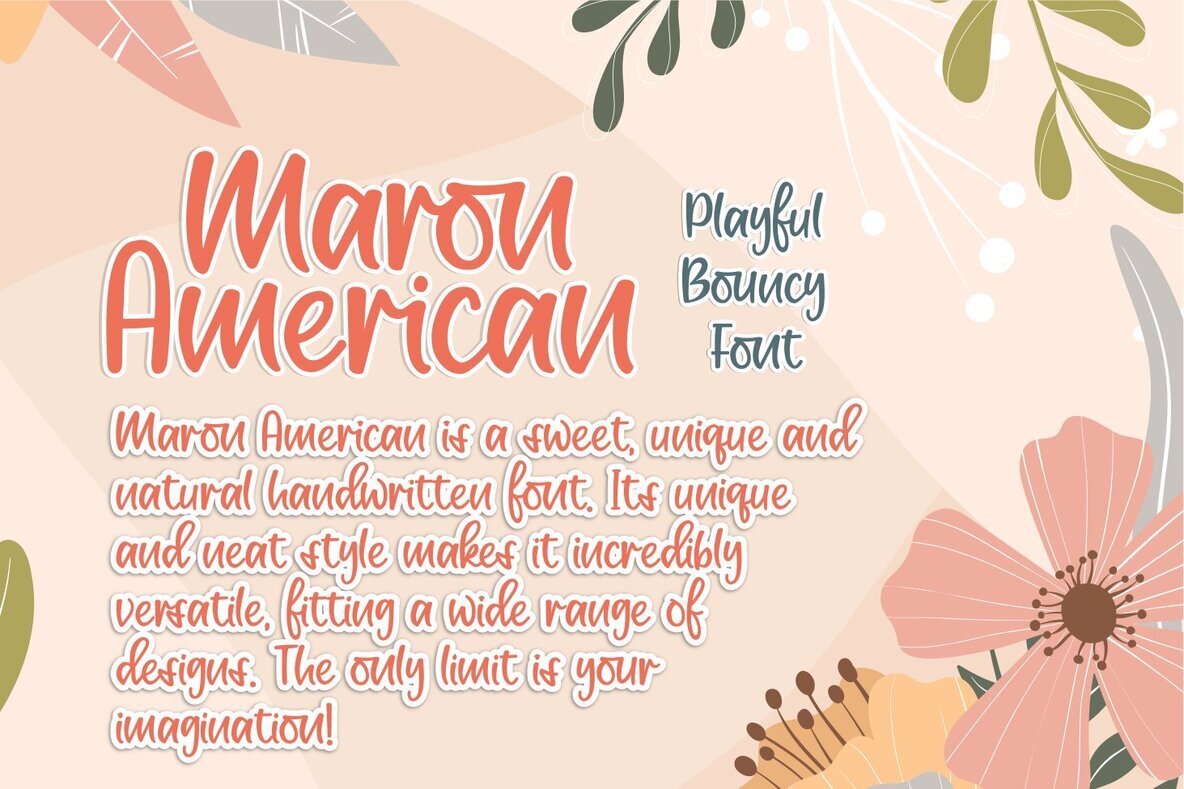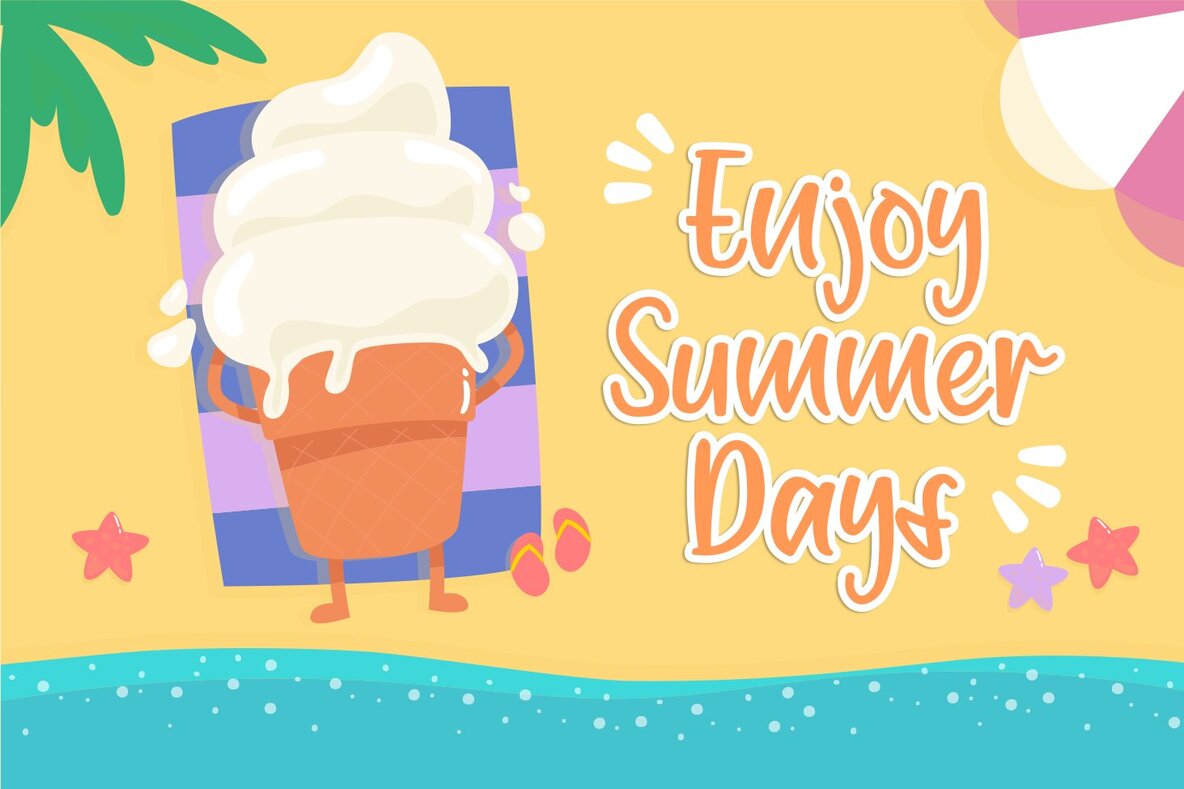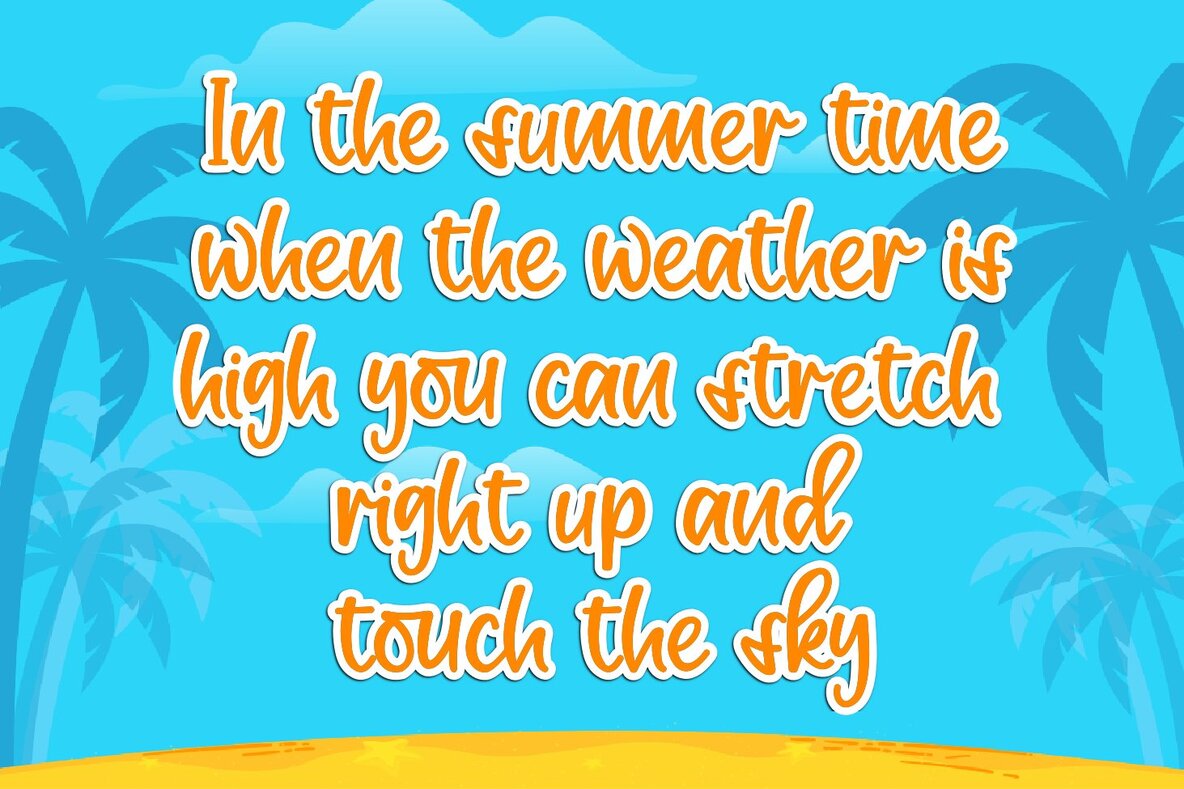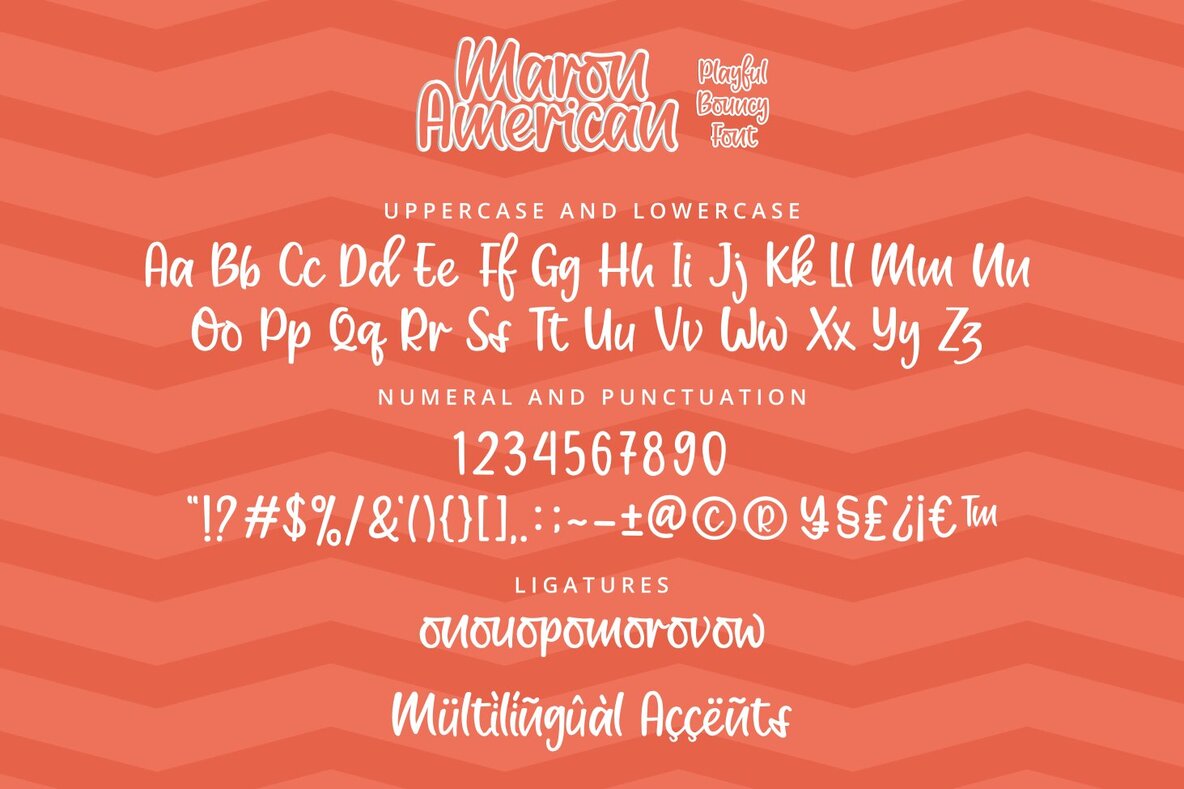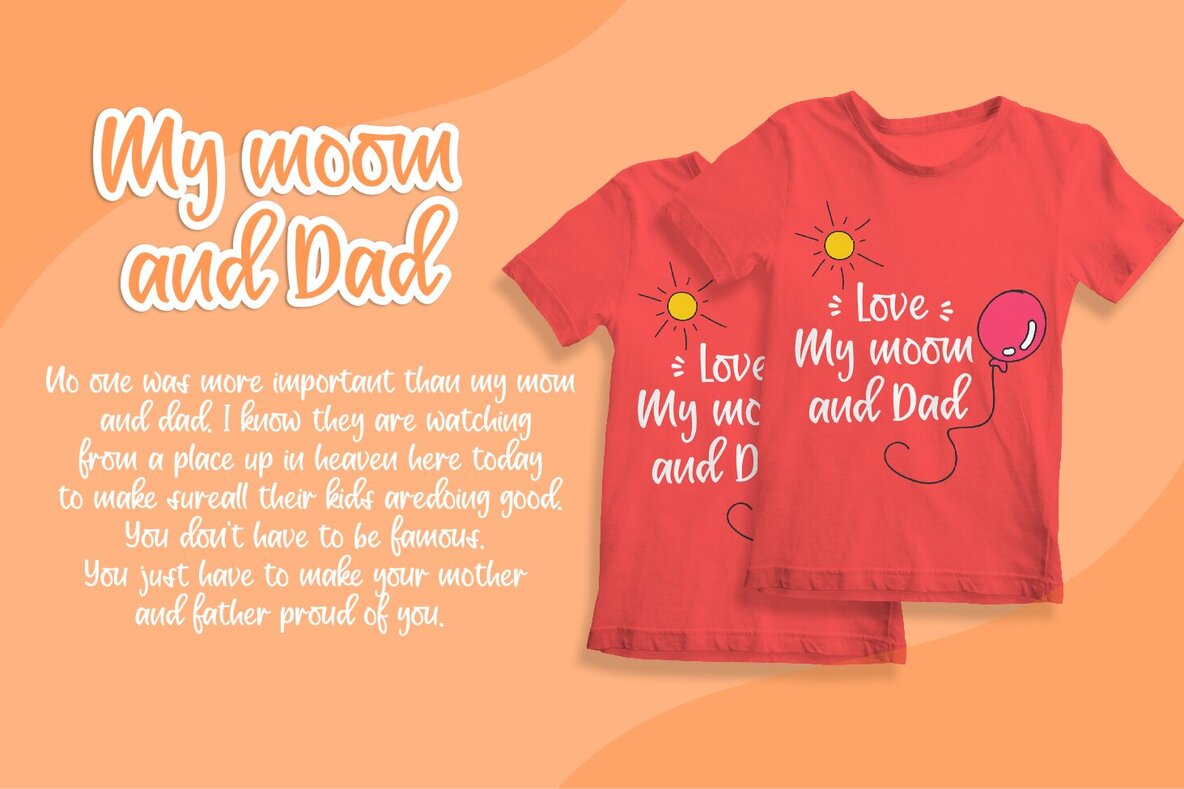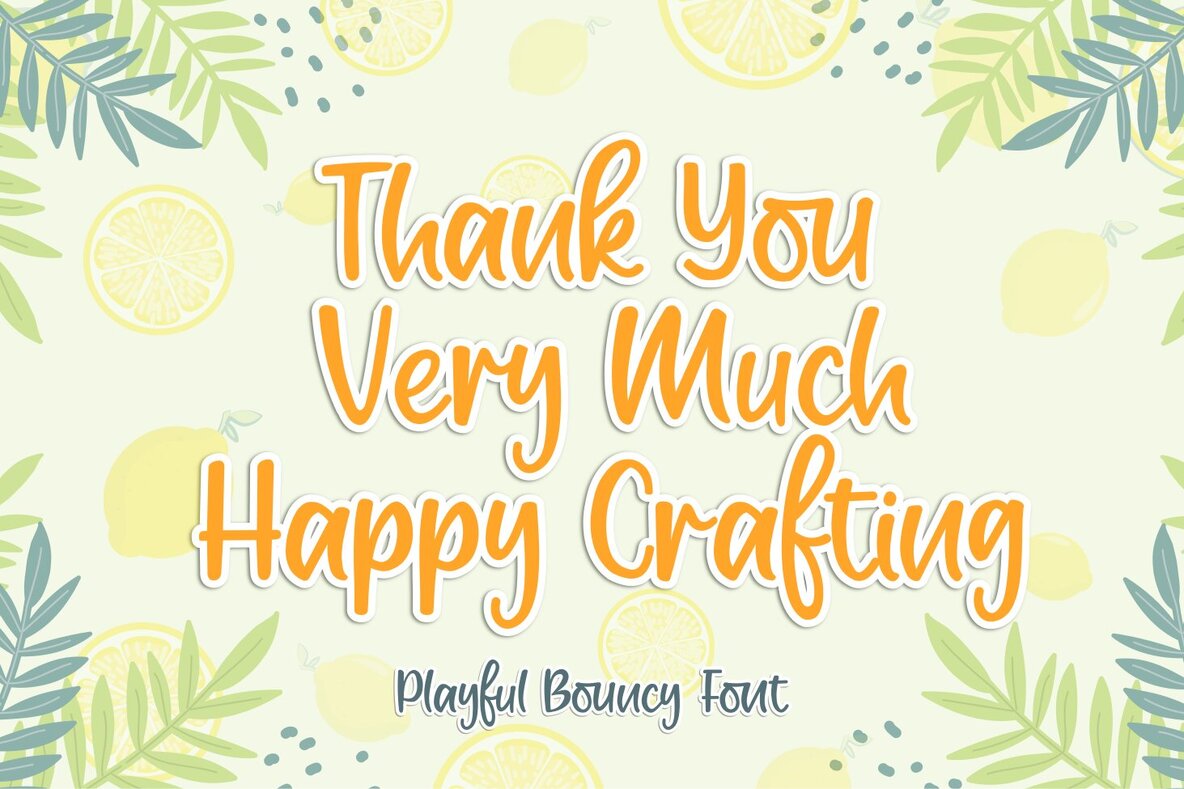
Maron American Font
Maron American
Maron American is a sweet unique and natural handwritten font. Its unique and neat style makes it incredibly versatile, fitting a wide range of designs. The only limit is your imagination! What’s Included :